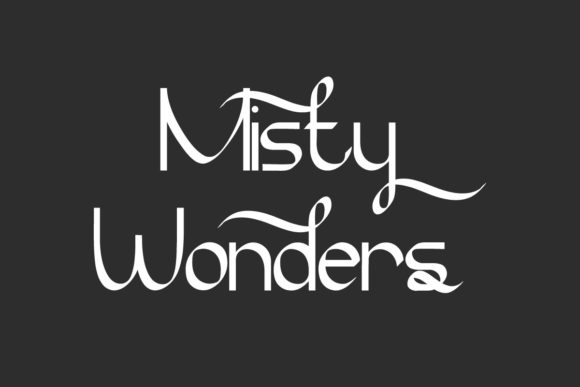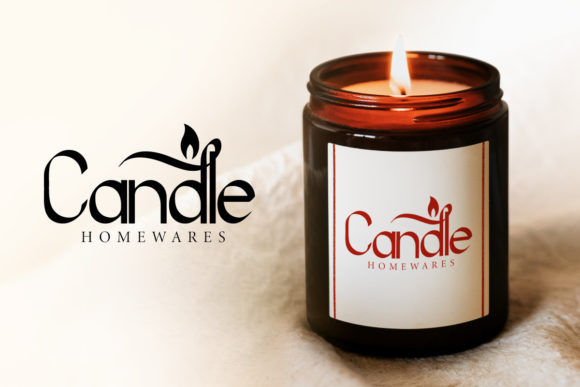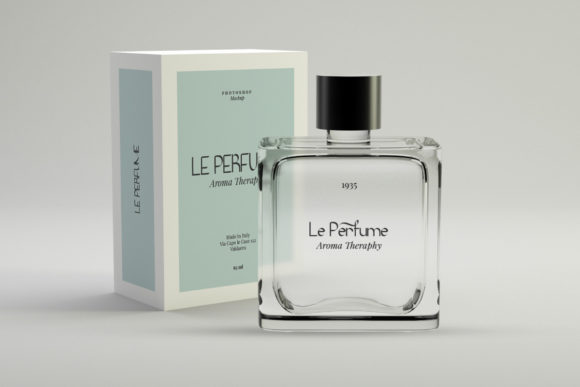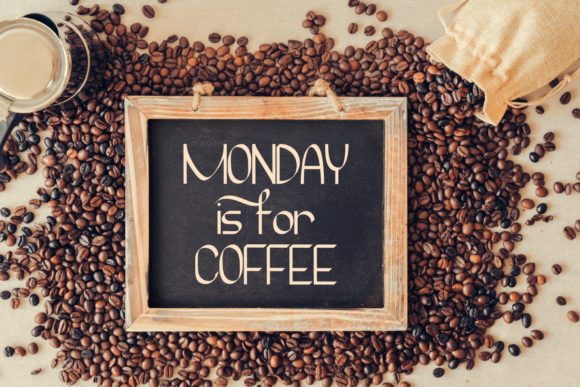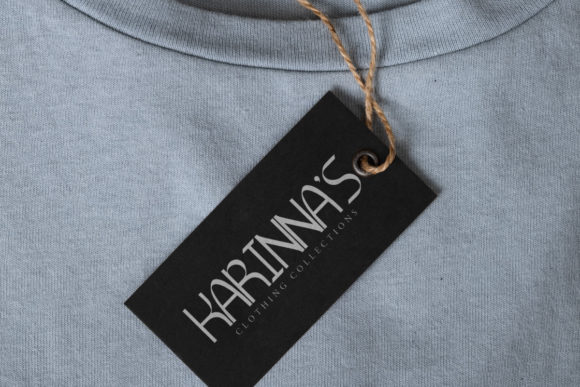
About Misty Wonders Font
Misty Wonders stands out as a stylish and distinctive script font, adding a touch of elegance and character to a wide array of design applications. Its versatile nature makes it a perfect choice for labels, headings, logos, branding designs, quotes, products, cards, stationery, invitations, and a myriad of other inspired ideas.
The font’s stylish flair is immediately evident, contributing to a sophisticated and modern aesthetic. Misty Wonders brings a sense of uniqueness to any design, making it well-suited for projects that demand a standout and memorable visual presence.
The adaptability of Misty Wonders is a key feature, allowing it to seamlessly integrate into various design contexts. Whether used in branding materials to establish a distinctive identity or in invitations to add a touch of sophistication, this script font caters to diverse creative needs.
Misty Wonders’ distinctive script style is not only visually appealing but also lends a sense of personality to the text. Its fluid and elegant strokes contribute to the overall charm, making it a font that can effortlessly elevate the visual impact of your designs.
Incorporating Misty Wonders into your design arsenal opens up a realm of creative possibilities. Its versatility ensures that it can enhance a multitude of inspired ideas, providing a stylish and distinct typography choice for designers seeking to make a lasting impression.
To summarize, Misty Wonders transcends being just a font; it’s a stylish and versatile design tool that can elevate a variety of creative projects. Whether for logos, branding, or invitations, Misty Wonders adds a touch of sophistication and distinctiveness to your designs, making them truly stand out.